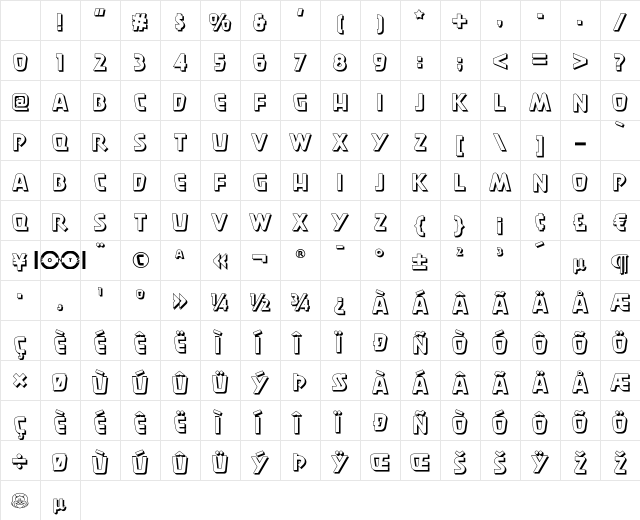
Complete Burger Doodle NF Two Regular glyph index. Displaying only characters natively supported by Burger Doodle NF Two Regular font.
Burger Doodle NF Two is a composed and adaptable typeface that performs quietly and consistently across a wide range of design contexts.